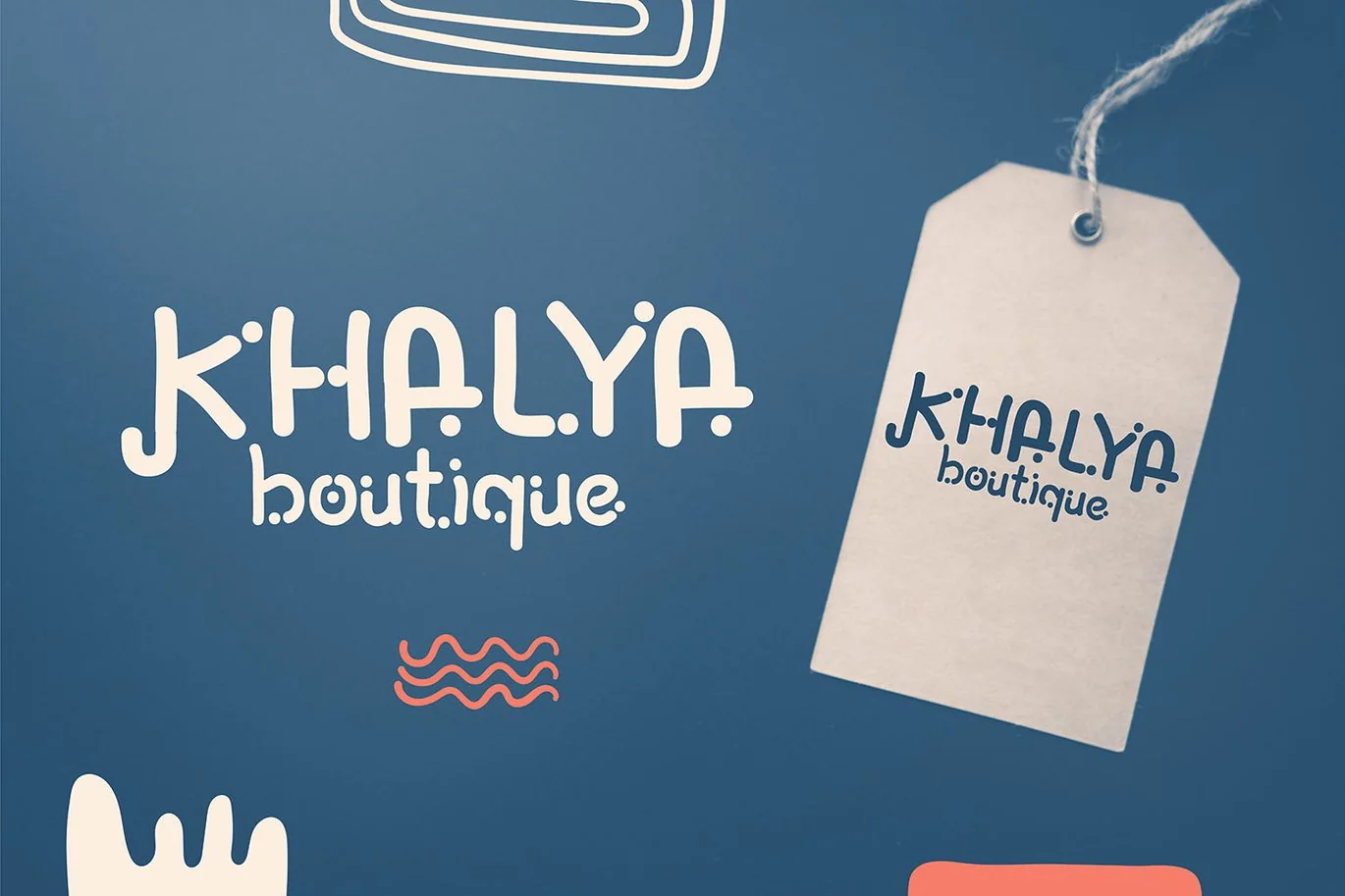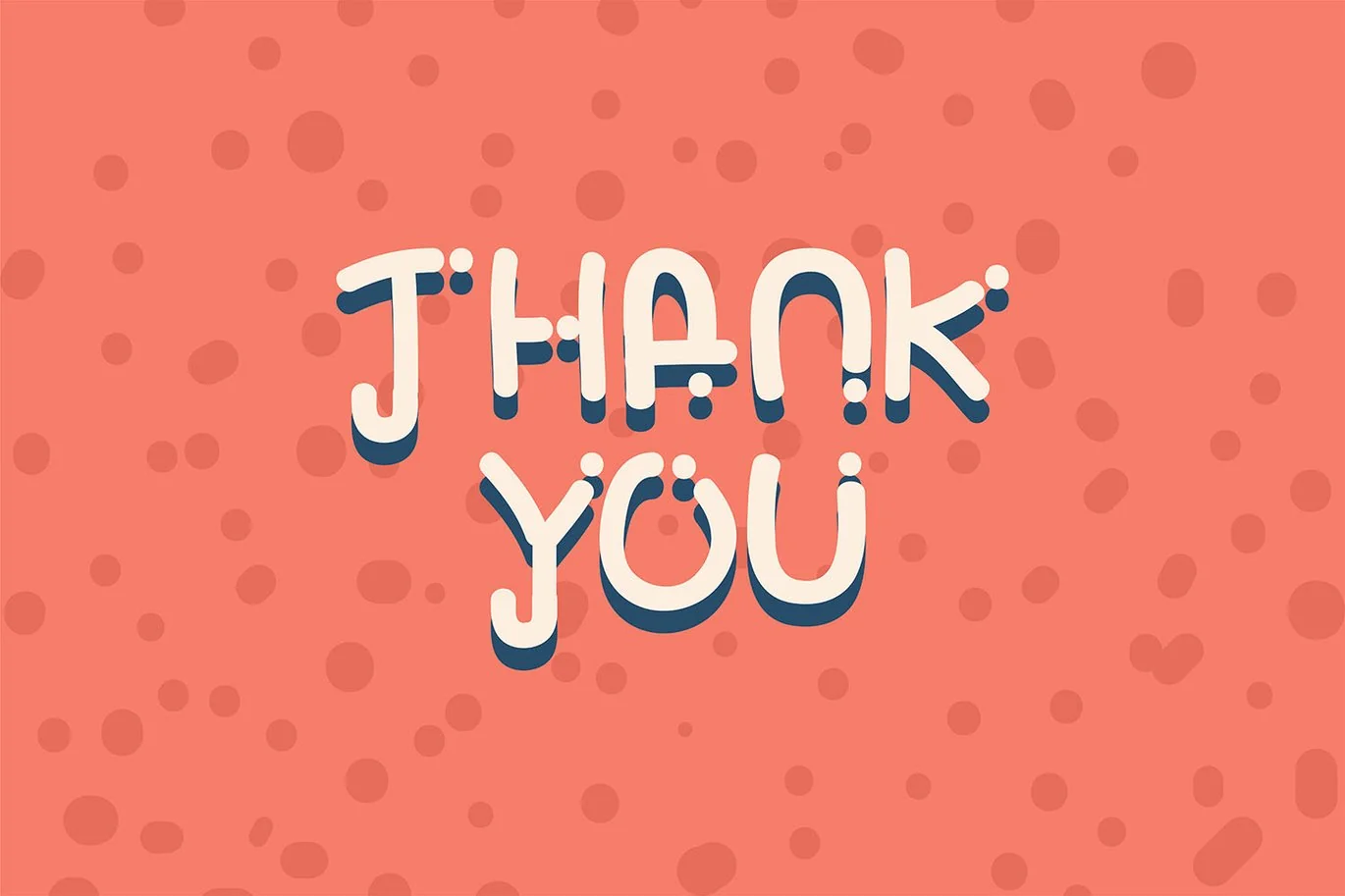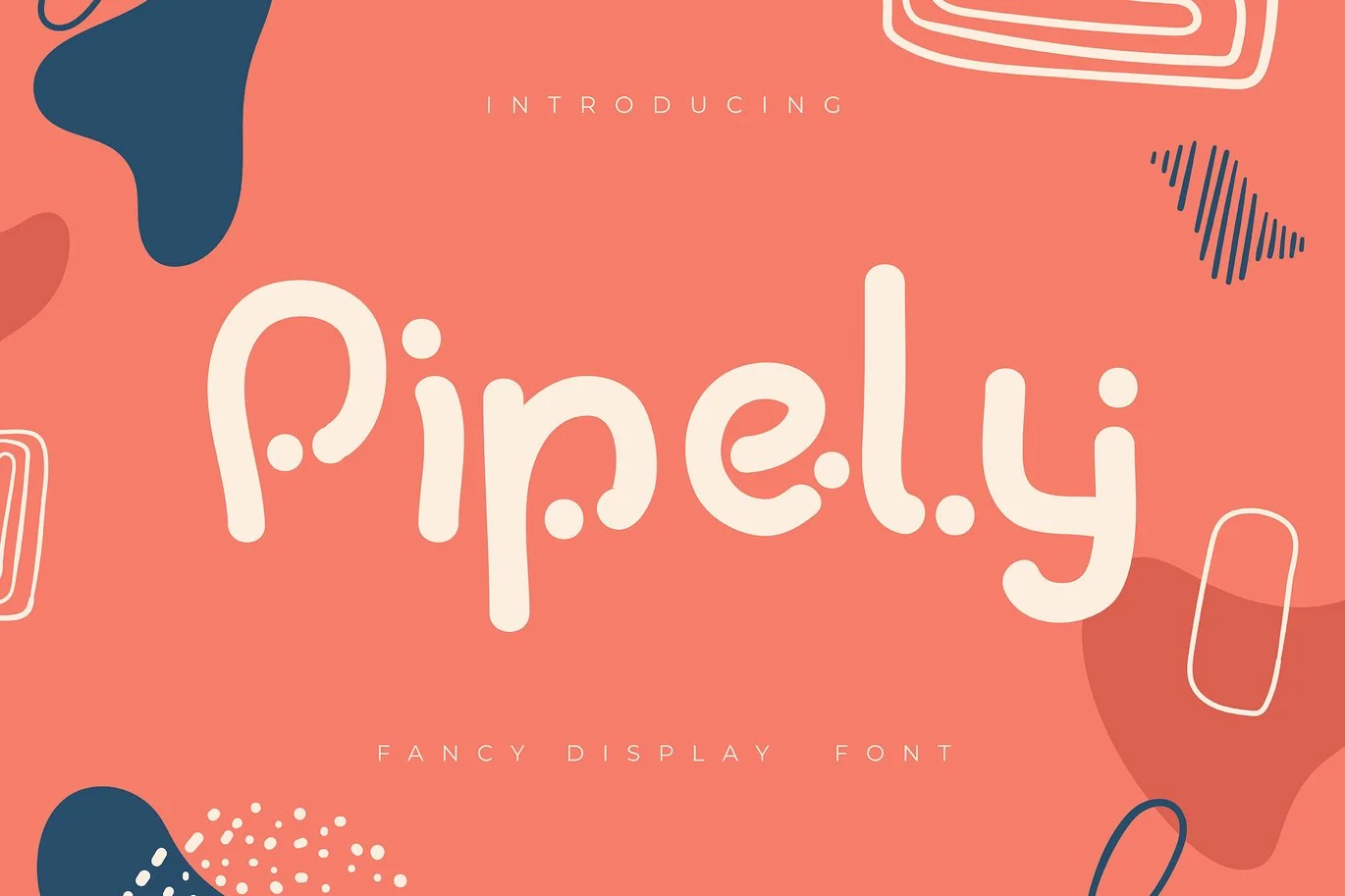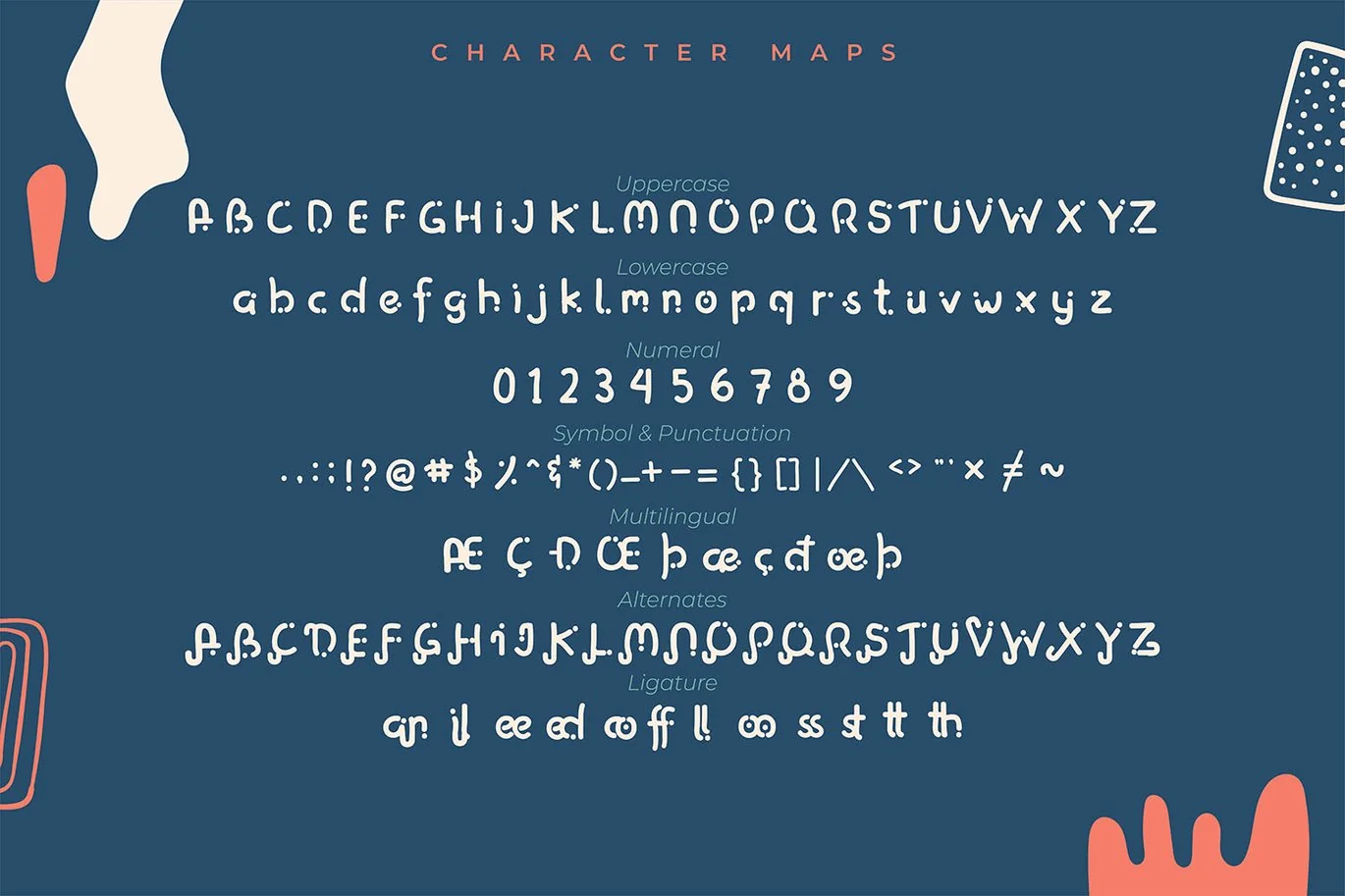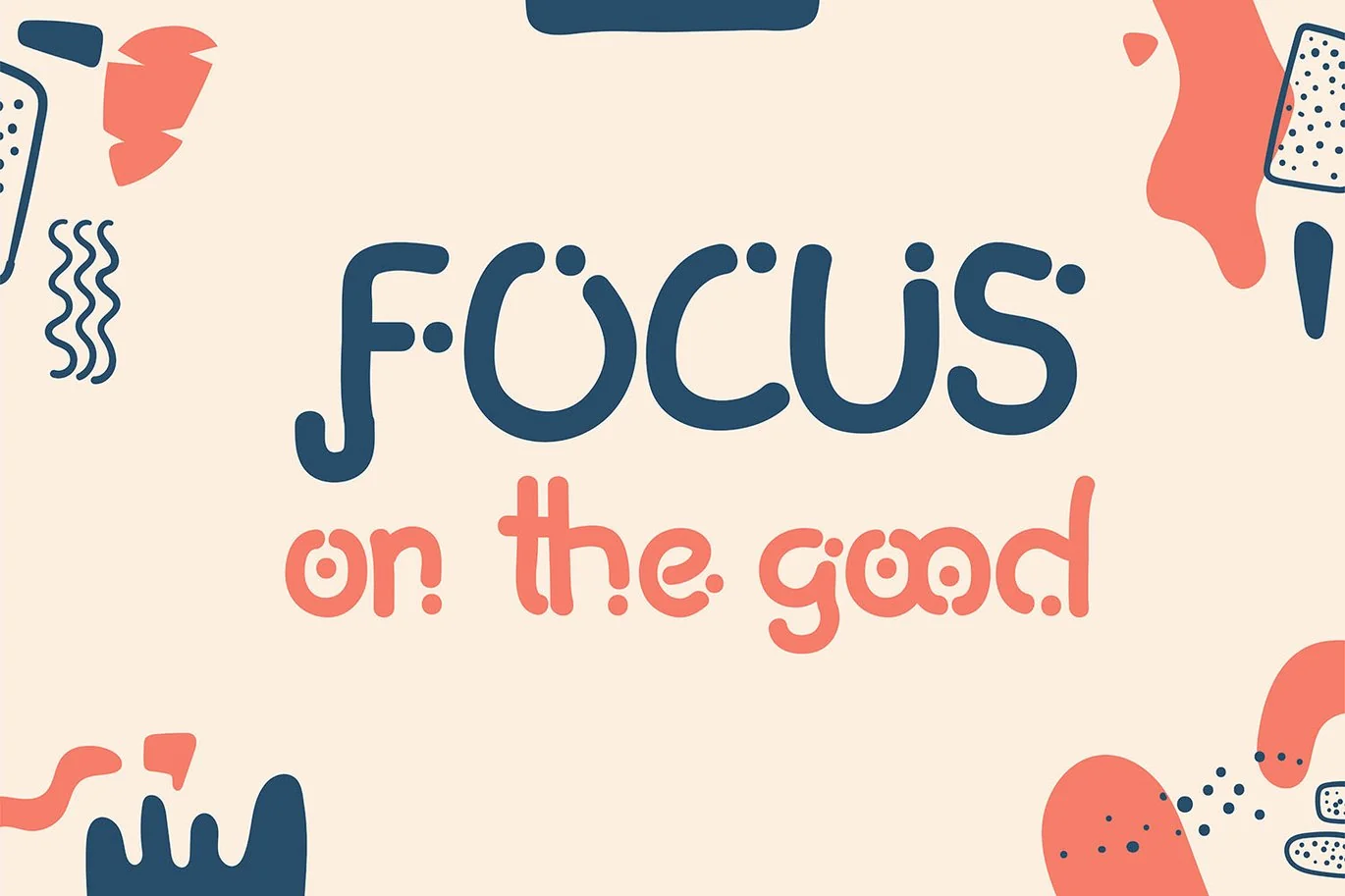
Pipely | Fancy Display Font
Pipely | Fancy Display Font with a calligraphy style, So beautiful on invitation like greeting cards, branding materials, business cards, quotes, posters, and more!